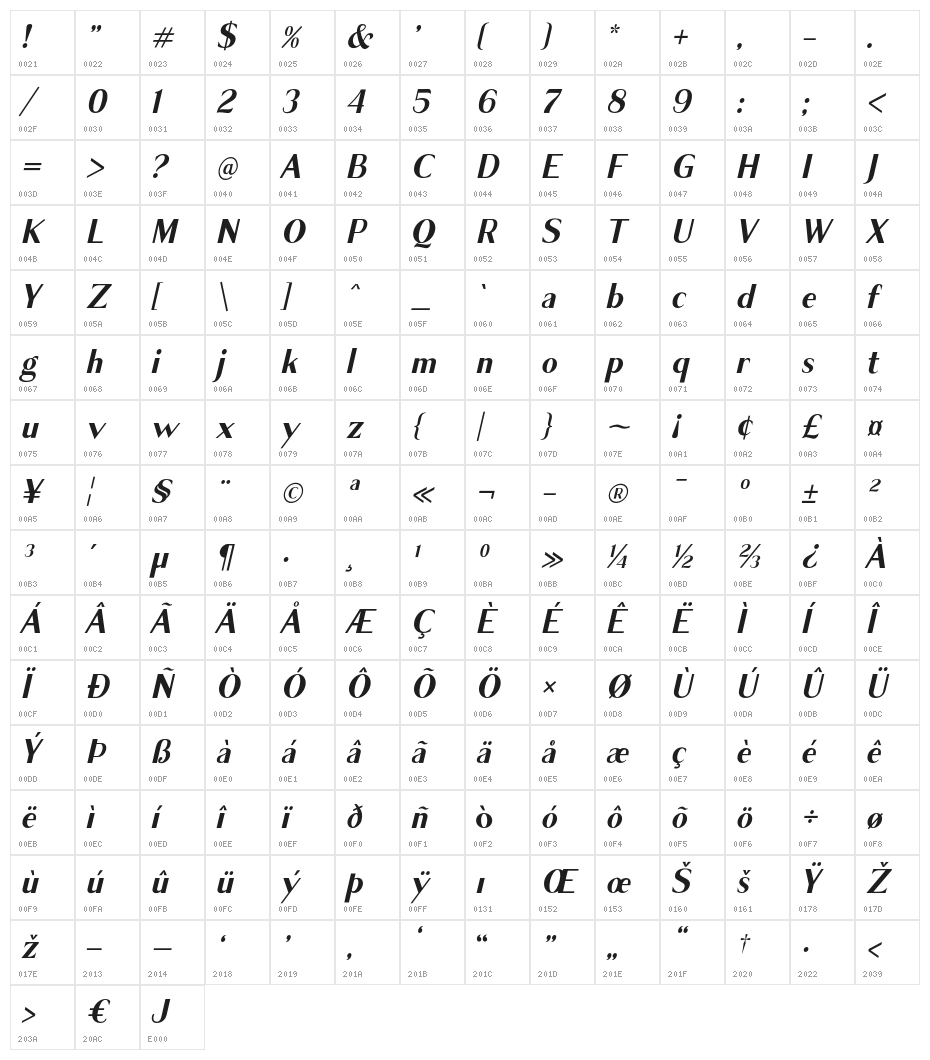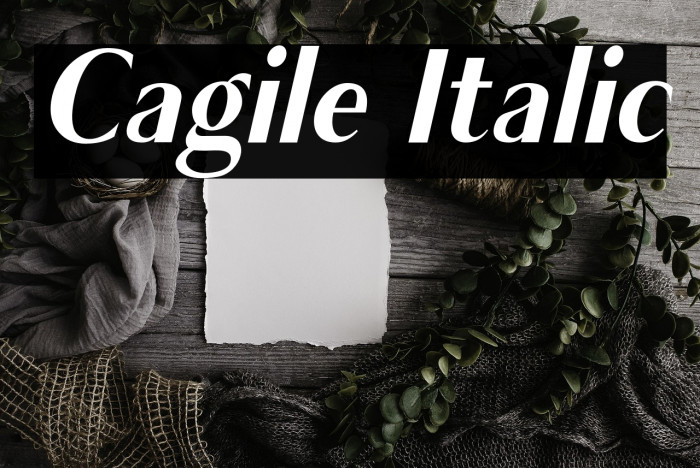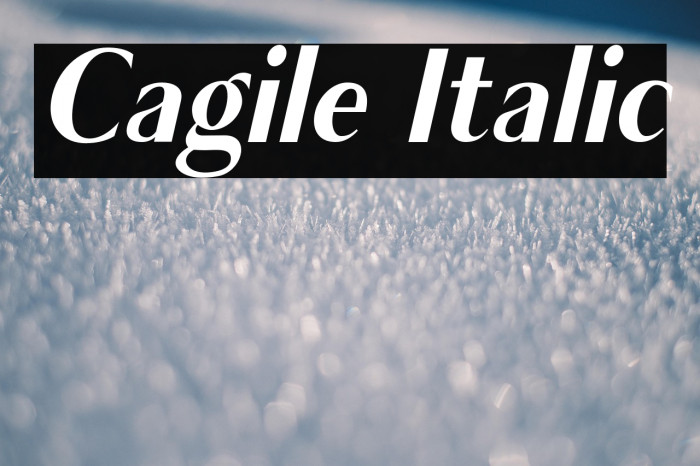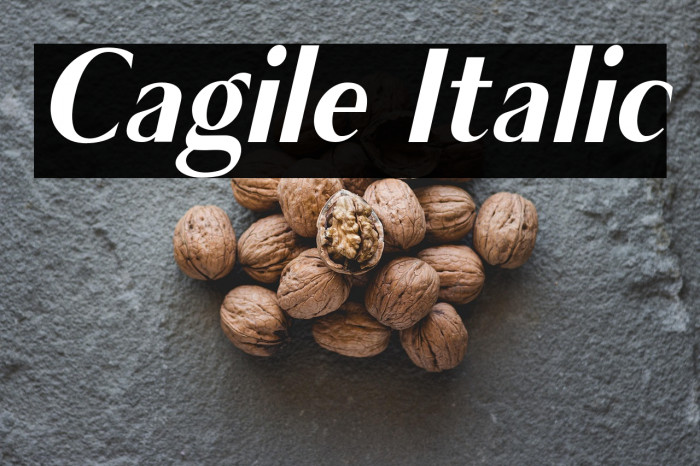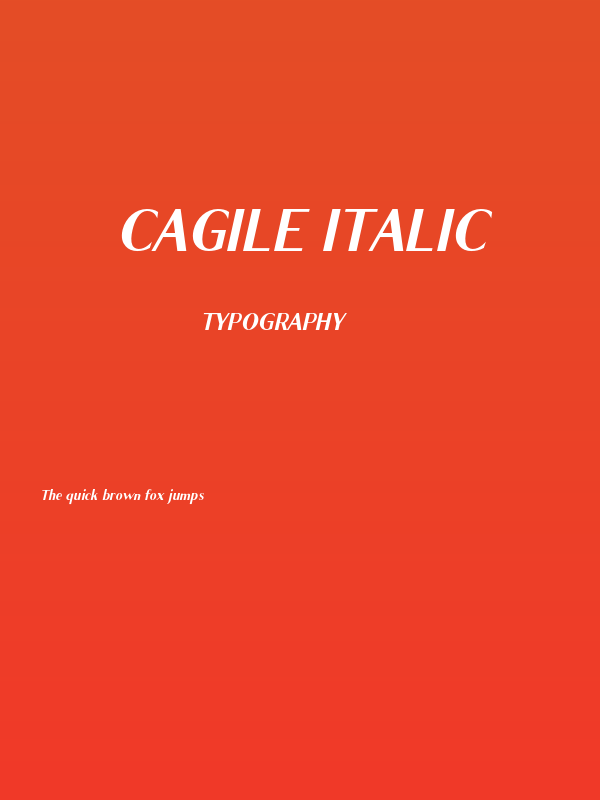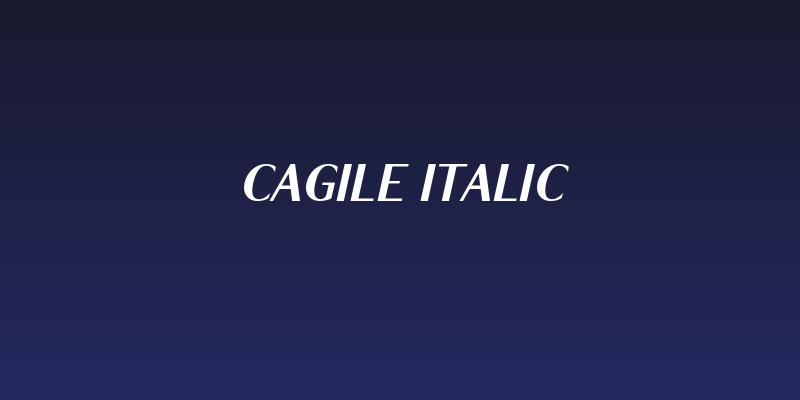
Cagile Italic Font
Cagile Italic Description
This elegant italic typeface features a sophisticated and dynamic slant, giving it a sense of movement and fluidity. The strokes are smooth and well-defined, with a moderate contrast between thick and thin lines, adding to its refined appearance. The characters are slightly condensed, allowing for efficient use of space while maintaining readability. The uppercase letters exude a formal and authoritative presence, while the lowercase letters are more playful and approachable. The numerals are clear and balanced, making them suitable for both text and display purposes. The special characters are thoughtfully designed, ensuring consistency across the entire typeface.